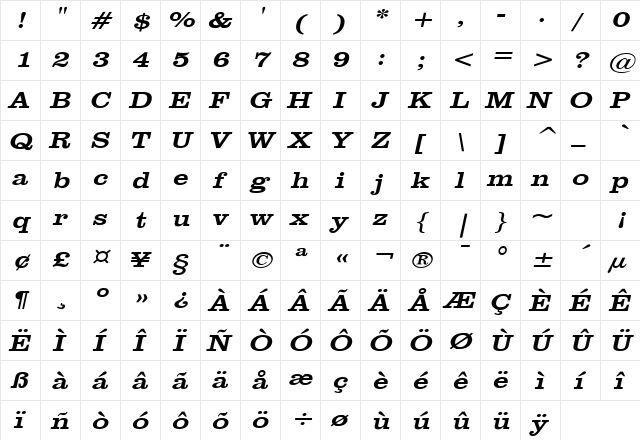
Clare Wide Italic
Design Context for Clare Wide Typeface
Clare Wide is a composed and adaptable typeface that performs quietly and consistently across a wide range of design contexts. The slanted form adds forward momentum and visual energy.
Pro Tip: Try Clare Wide for annotation and caption copy alongside an upright companion — the contrast in angle creates a dynamic but ordered typographic system.